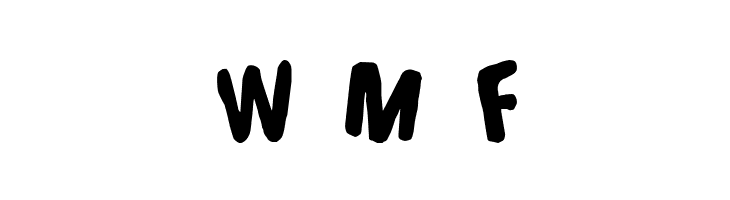
Monsterama Condensed Italic Font
- Font: Monsterama Condensed Italic
- Weight: Condensed Italic
A playful, bold, hand-drawn font with thick, rounded strokes and a lively appearance.